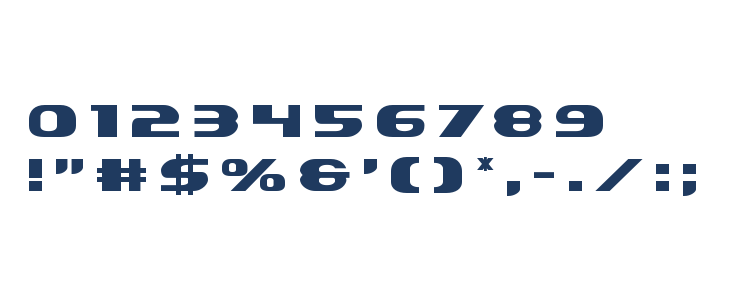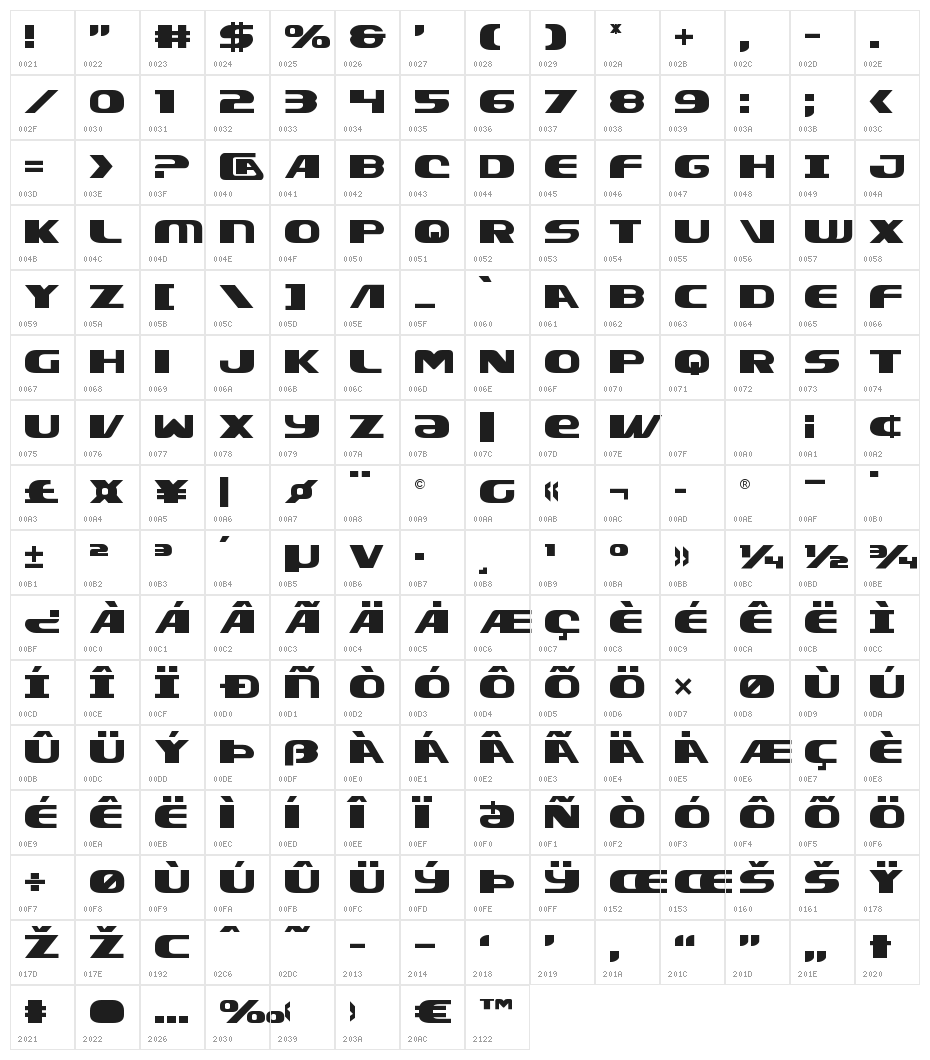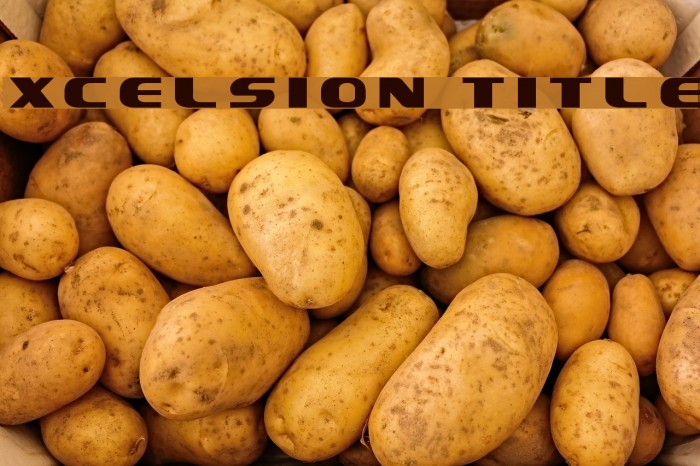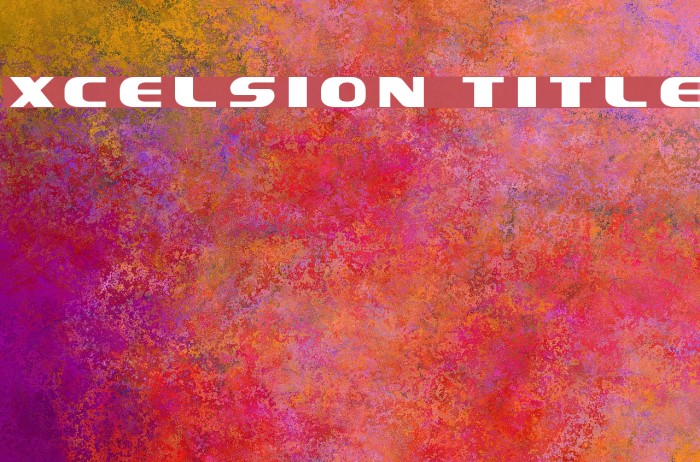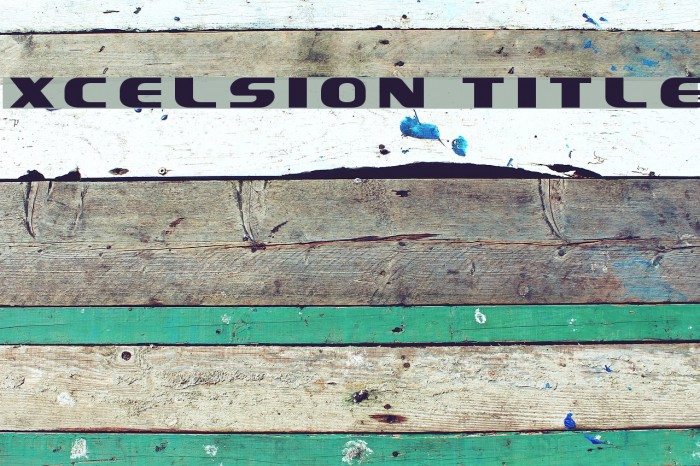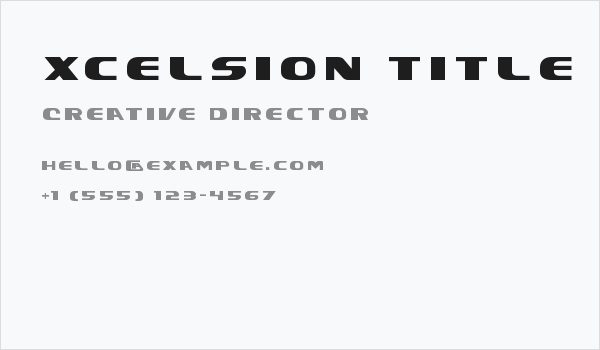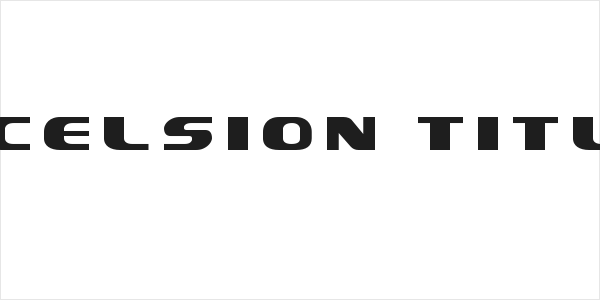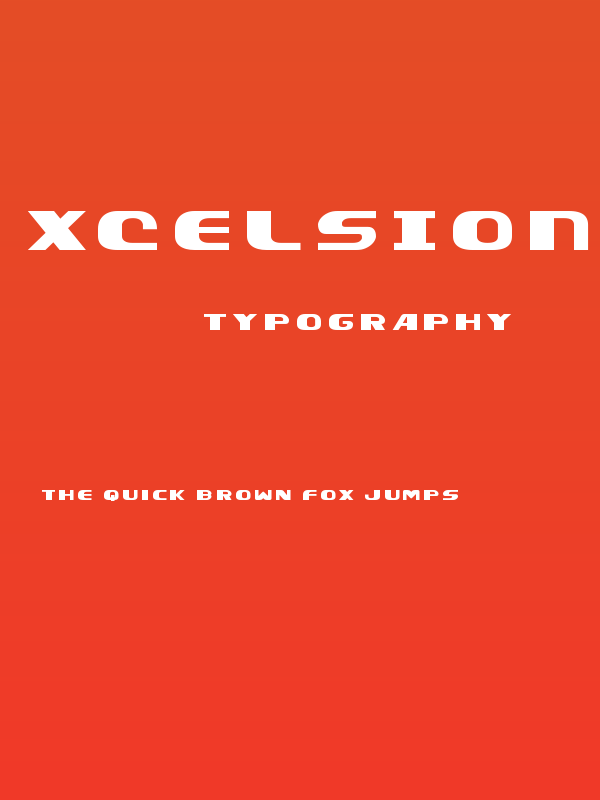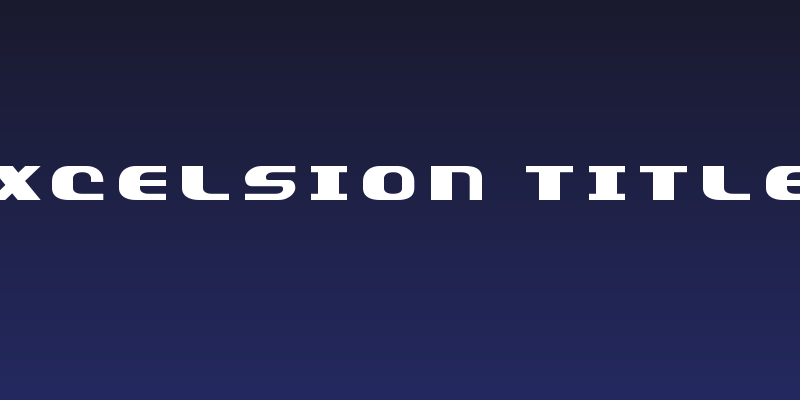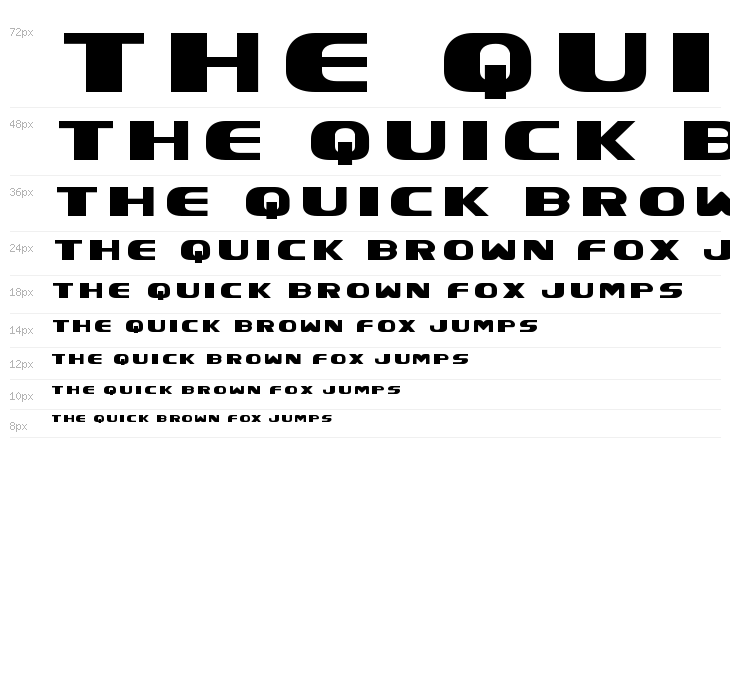
Xcelsion Title Font
Xcelsion Title Description
This font features a bold and modern design with a futuristic flair. The characters are wide and have a strong presence, making them ideal for attention-grabbing headlines. The uppercase letters are particularly striking, with a geometric and angular style that conveys a sense of strength and innovation. The lowercase letters maintain the same boldness, ensuring consistency across different text cases. Numbers and special characters are designed with the same aesthetic, providing a cohesive look throughout. The font's overall appearance is sleek and contemporary, suitable for projects that require a modern and impactful visual identity.
XCELSION-TITLE UPPERCASE
XCELSION-TITLE LOWERCASE
XCELSION-TITLE OTHER CHARS
| Proposed Projects | Ideal for technology branding, sci-fi movie posters, video game titles, and modern advertising campaigns. |